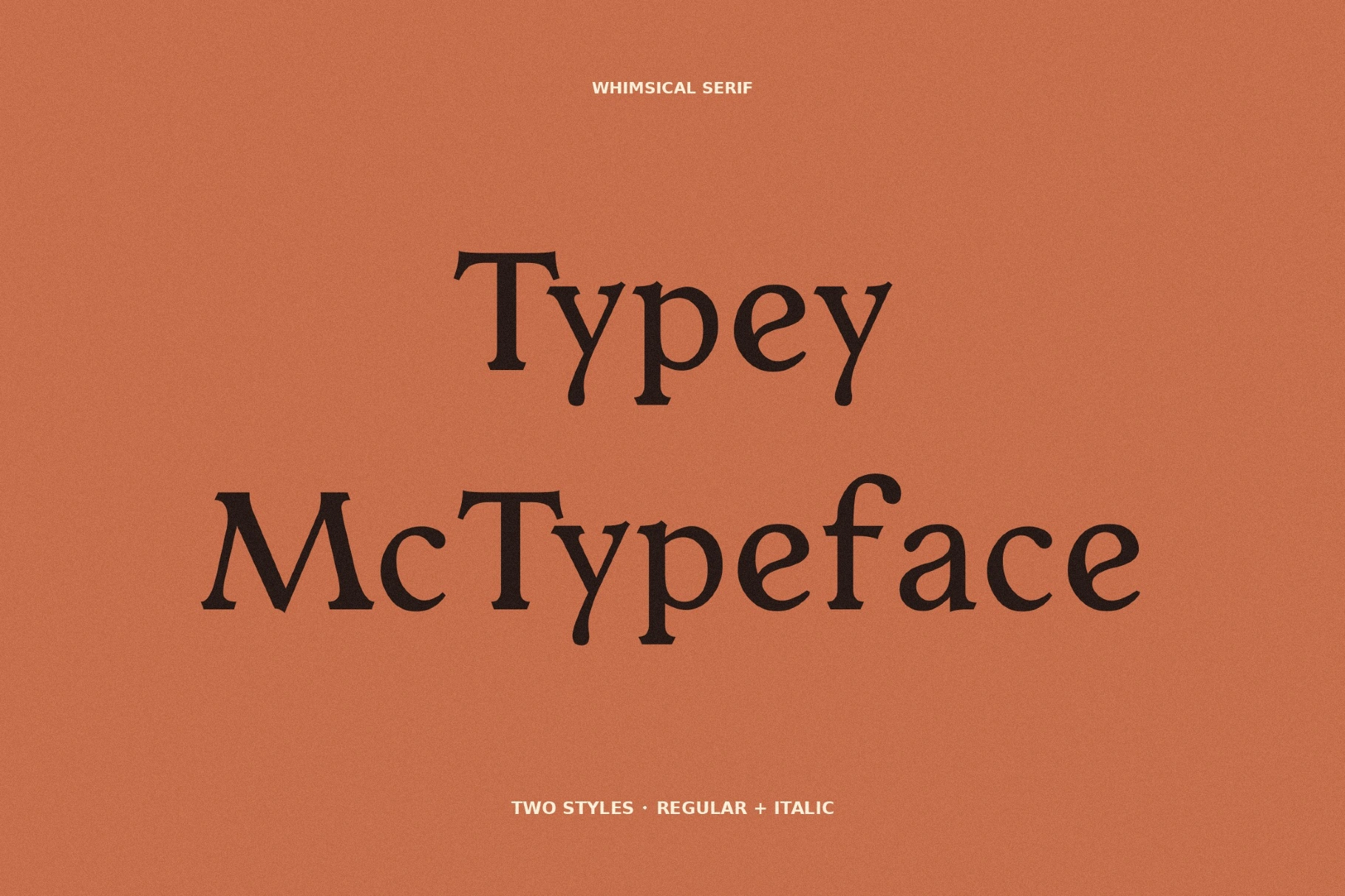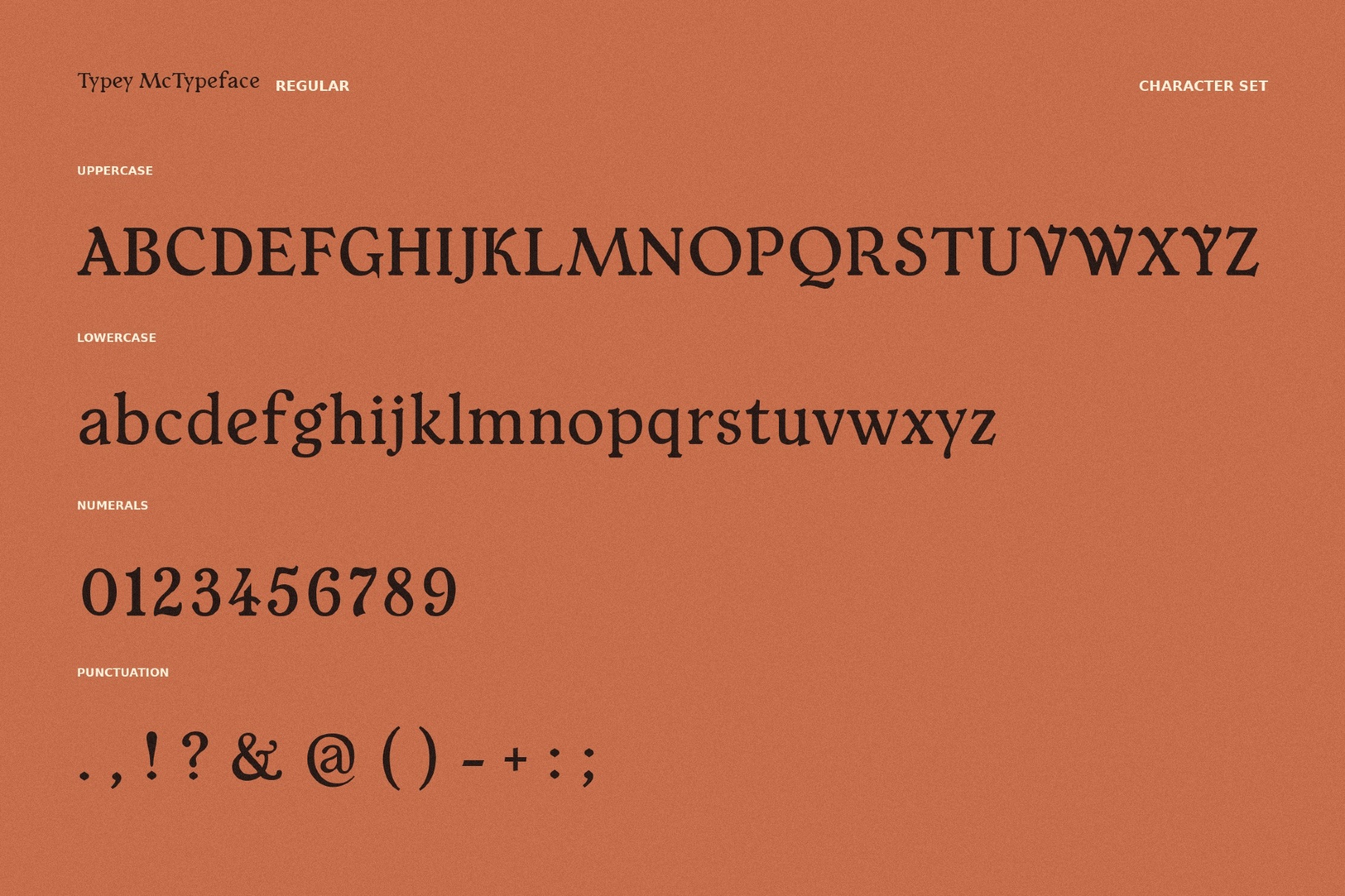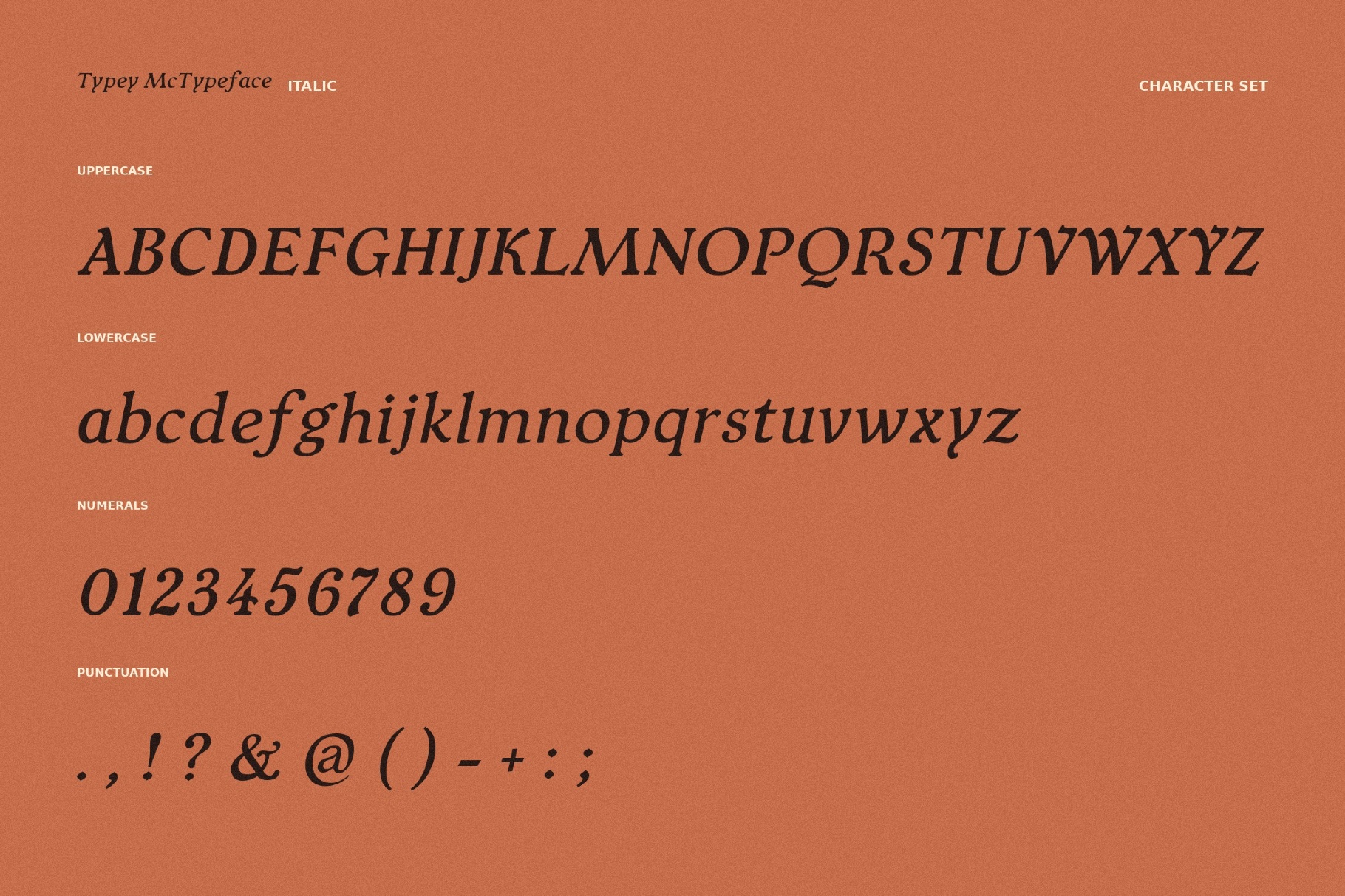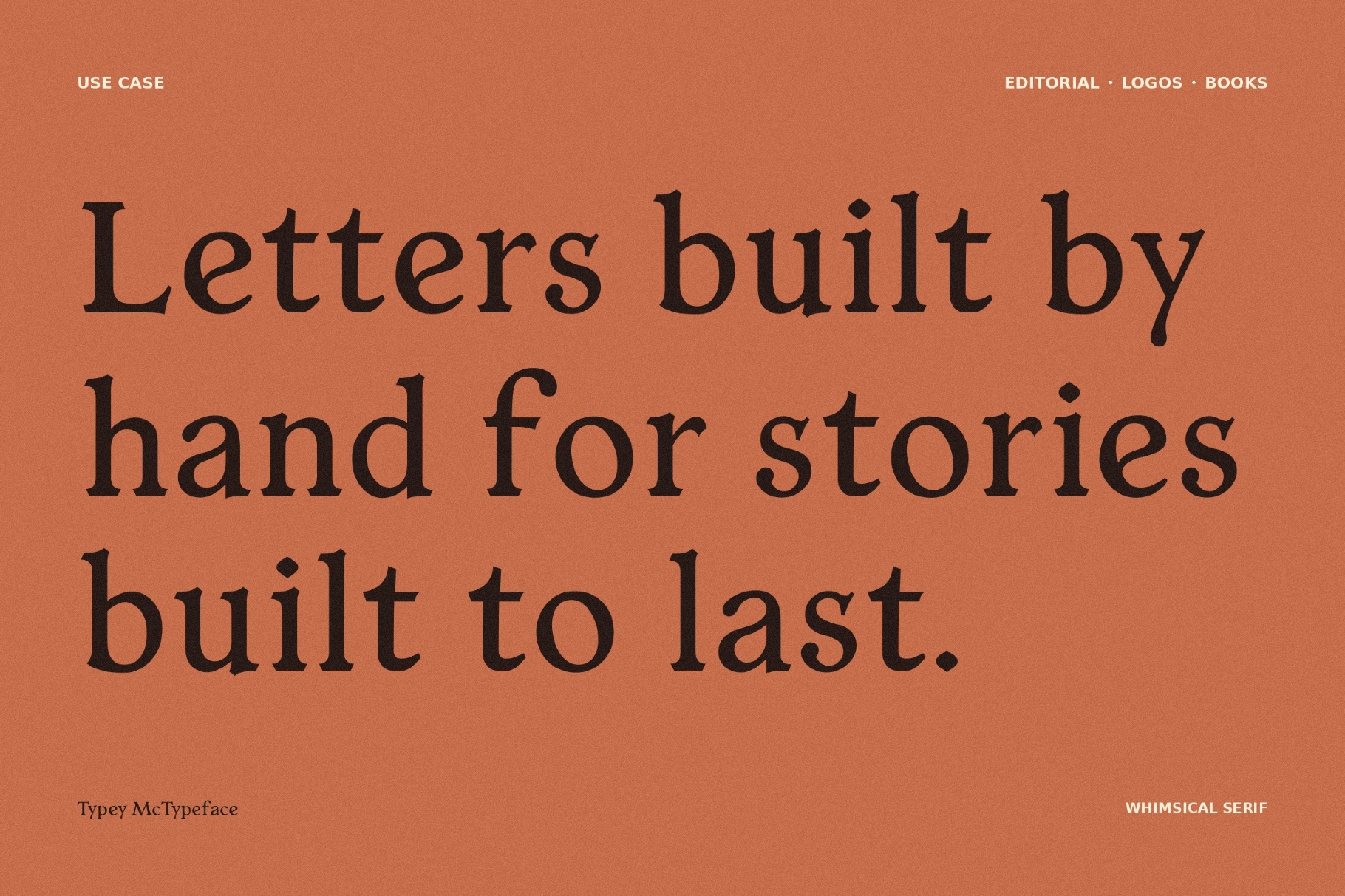
Typey McTypeface - Free Fantasy Font
Typey
Typey McTypeface gives a classic serif a relaxed, handwritten sway, like in old-school primers, literary notebooks, and informal editorial marginalia. Its readable fantasy type charm suits children’s books, educational materials, personal essays, stationery, craft packaging, café menus, social media quotes, reading journals, and classroom graphics.
- uppercase and lowercase letters;
- numbers, punctuation, dingbats, and symbols;
- multilingual support across the extended Latin, Cyrillic, and Greek scripts;
- ligatures and stylistic alternatives.